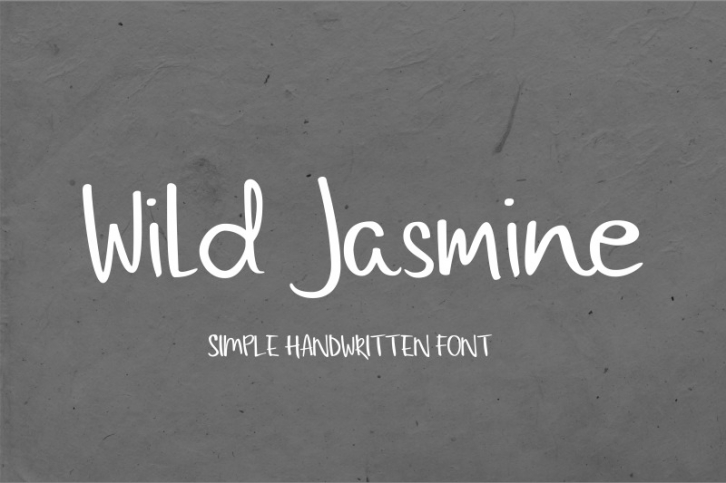
Wild Jasmine Handwritten Font Download
Wild Jasmine is a brand new simple handwritten font!
It comes with a full set of uppercase and lowercase characters, numbers, symbols and punctuation and multilingual support.
It can be used in a variety of products.